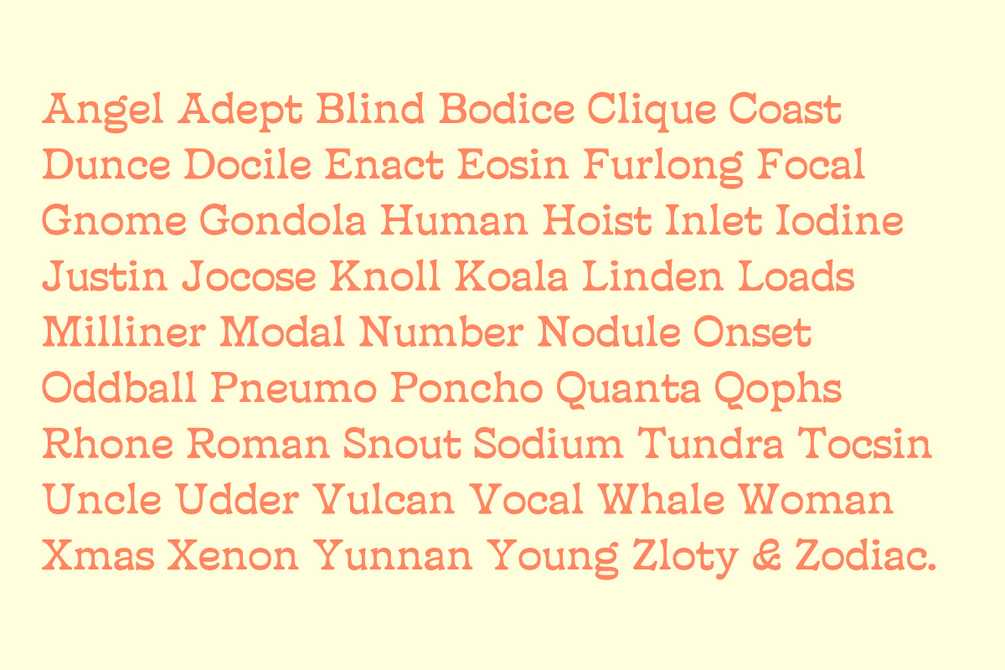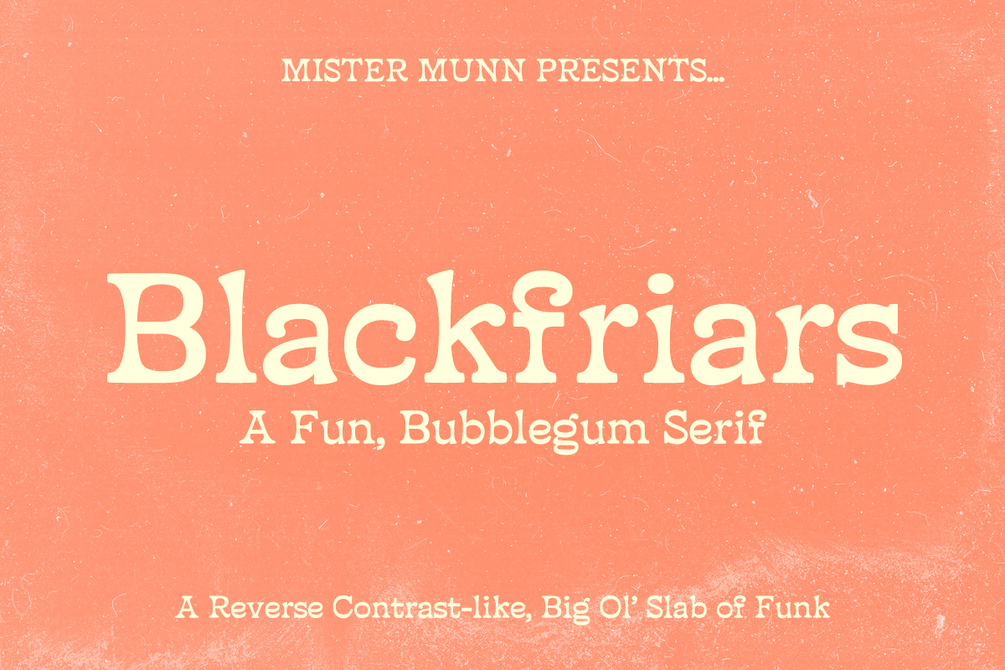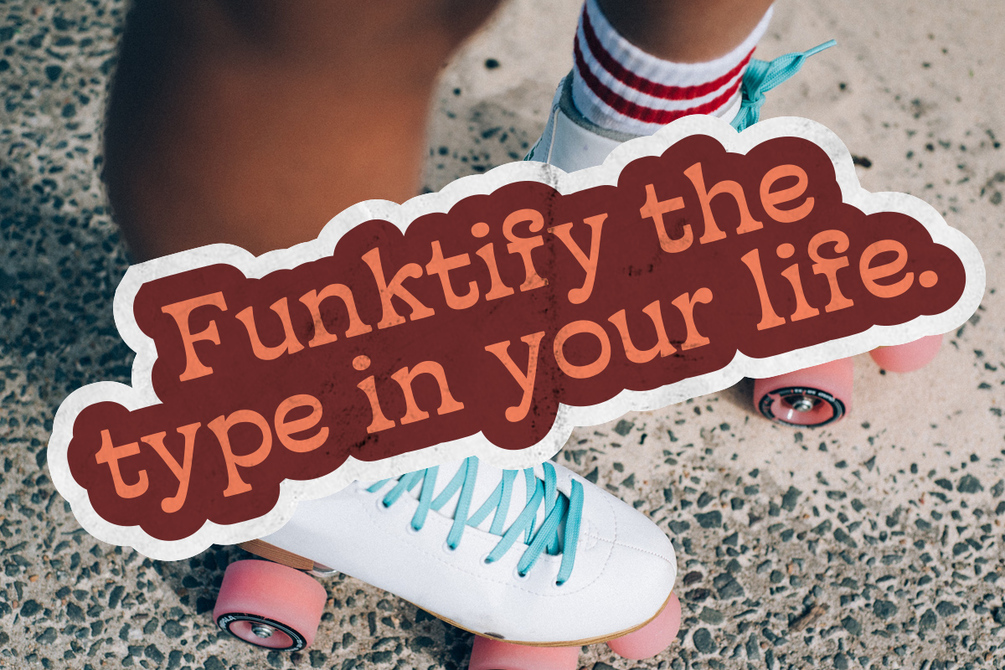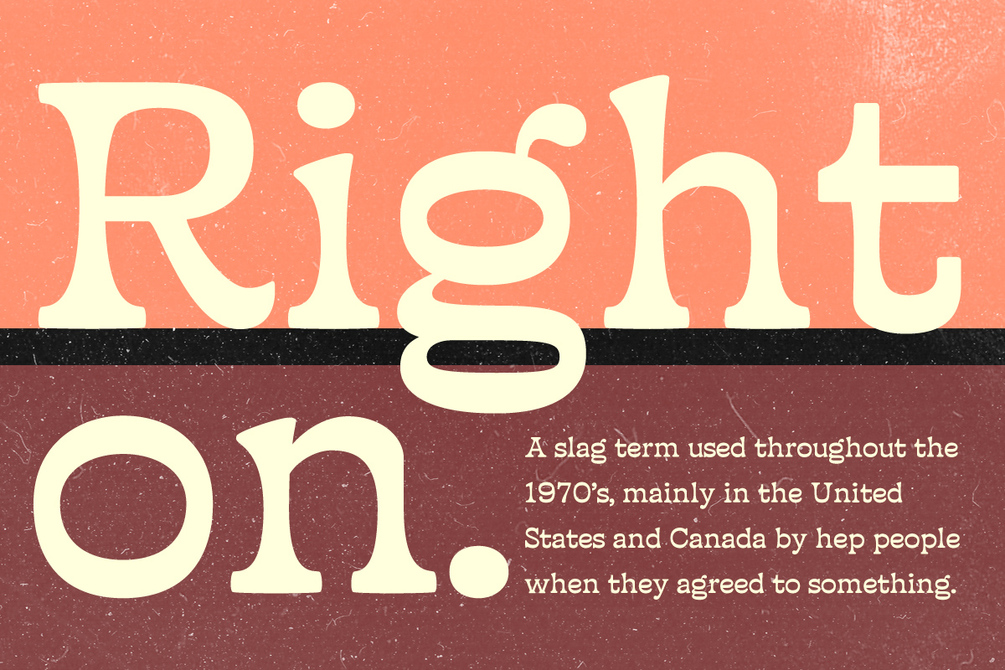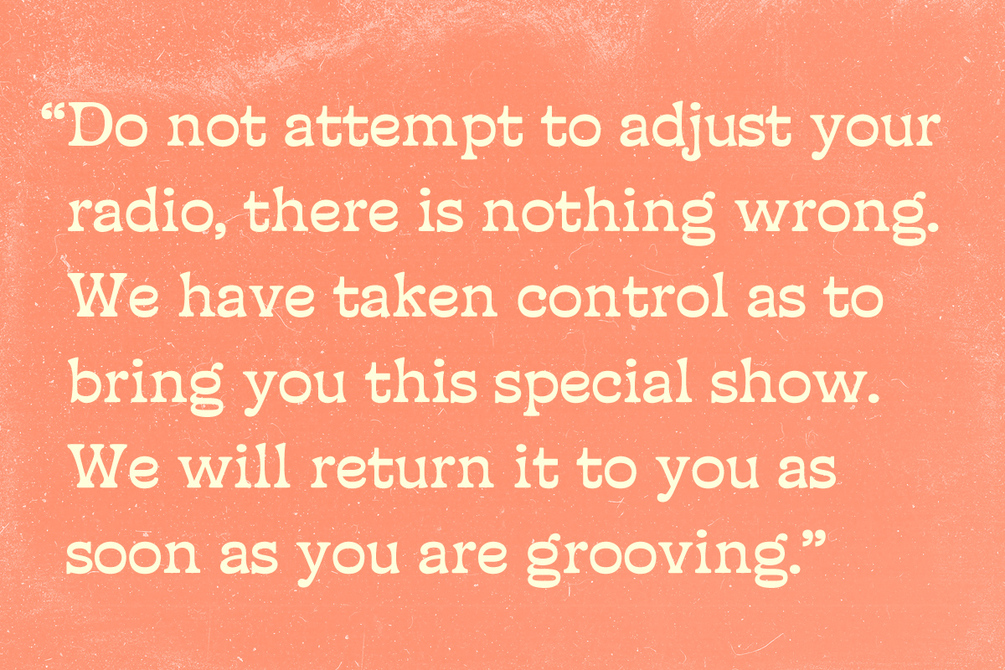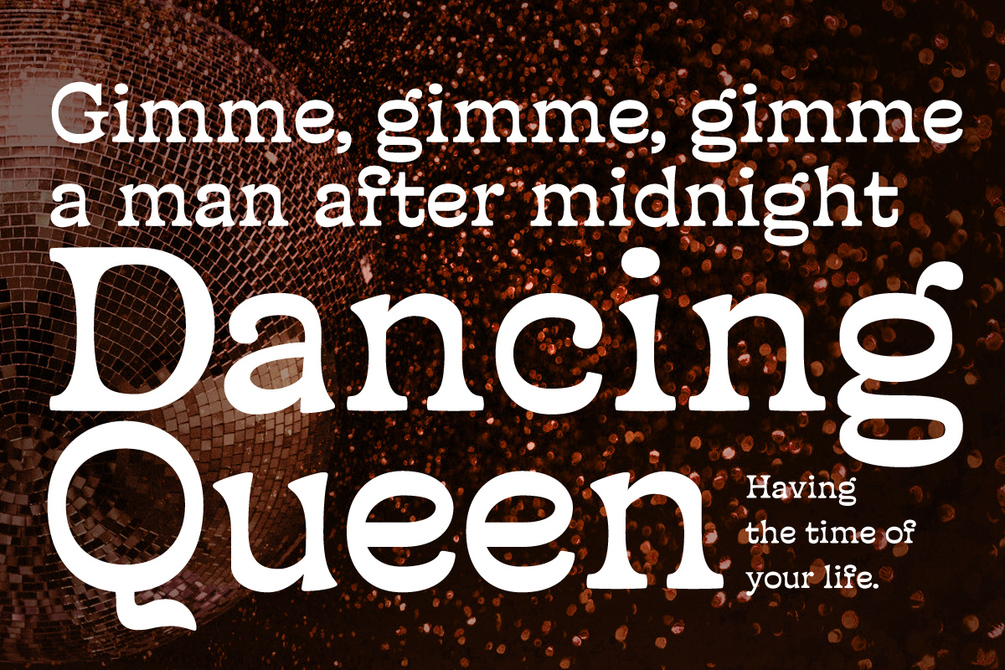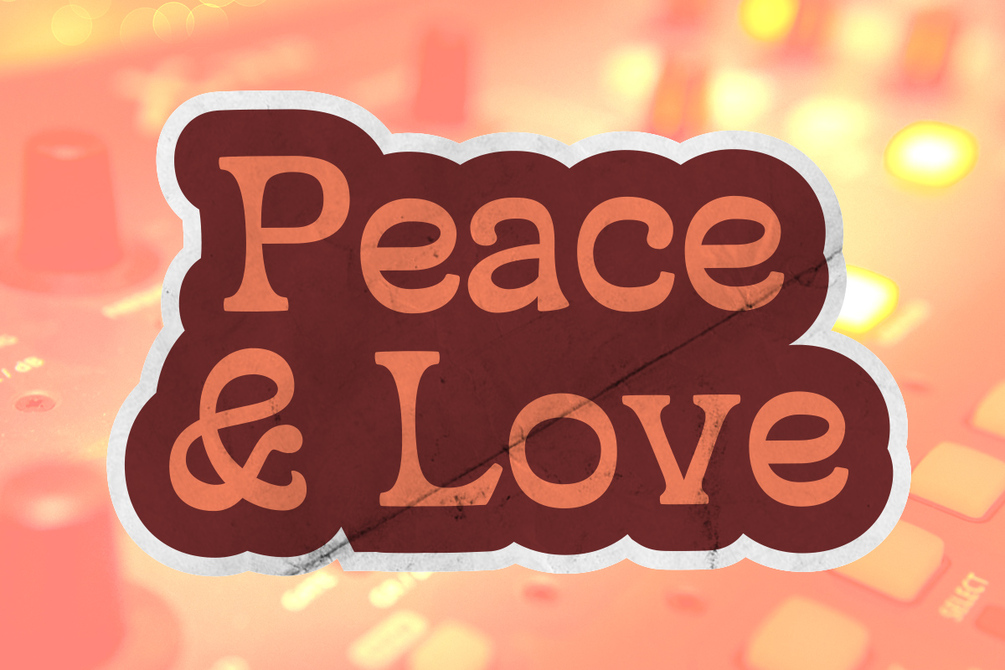
Blackfriars Typeface
Originally released before 1910 by the Blackfriars Type Foundry in London and later in 1976 by LetraSet, Blackfriars Roman is back and looking better than ever.
Meticulously redrawn with more utilitarian uses in mind, Blackfriars Roman still retains its full-of-funk personality. Suitable for big headlines and short bursts of text, Blackfriars Roman now contains full Latin+ support so as many people as possible can join the party.